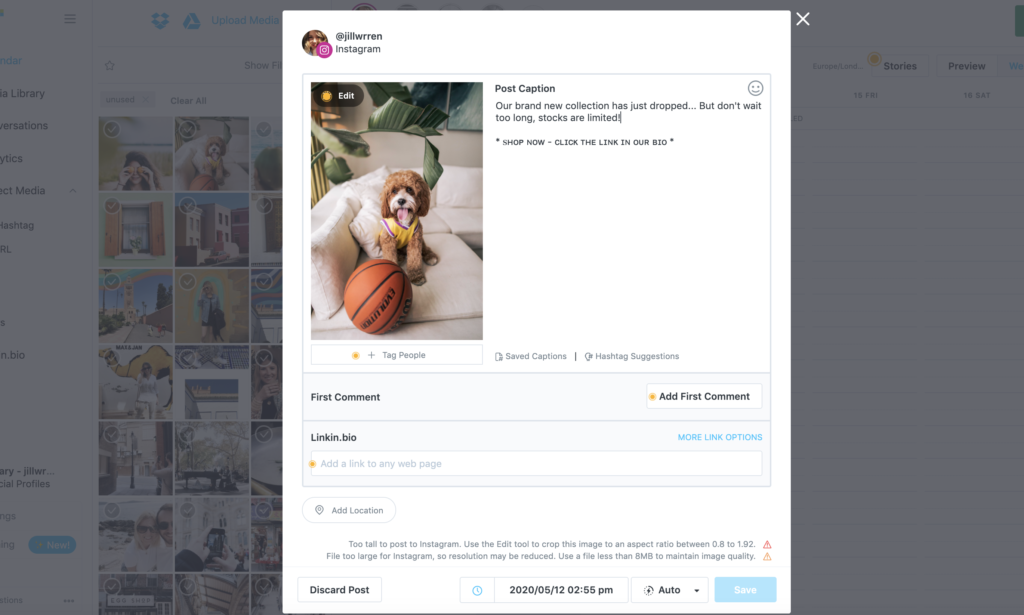
Unusual custom fonts can help you stand out from the Instagram crowd and attract new followers to your page. The official Instagram app or its web version don’t allow you to choose a custom font and change the default one; the only exception is Instagram stories.
However, if you read this article till the end, you’ll learn how to use different fonts in Instagram captions, bio, stories and even comments.
You have probably already seen Instagram profiles with fancy fonts that look much different from the default one. Your Instagram profile is your landing page, your digital face that contains your Insta personality in it: your story, your interests, your bio, number of posts you've made, followers and followings counts.
And unfortunately, you can't make the first impression twice, so you need to think everything through to make new audience become your clients. Visual aesthetics and fonts can help you do exactly that.
So, in a nutshell, what do you need different Instagram fonts for?
Instagram is a visual social media platform. Many designers, creators, and artists use it to showcase their work. Similarly, many brands and influencers are striving for attention by highlighting their creativity.
With that in mind, the competition level is incredibly high on Instagram.
Using custom fonts is one of the ways to make your Instagram look different from the others and stand out.
Custom Instagram bio by @bykatieeveInstagram wants you to experiment with content thus attracting more people to the platform. It offers so many ways to do that, including different content types like IGTV, Guides, Reels and more.
Changing your page fonts is not a built-in option, yet you still leverage it to showcase your creativity.
Instagram is a fast-paced platform with trends and challenges popping up one after another.
These trends have a direct impact on what you do on Instagram and which content you publish; you just can't stick to one trend for a long time - this will make your audience get bored and unfollow.
Using custom fonts on Instagram is currently among the trends used by influencers and brands. This means that it is time to give it a try.
There are plenty of services and apps that help you change fonts on Instagram. Free Combin Scheduler is one of them.
Let's focus on the fonts customisation, however.
To add a custom font to your post, just enter your caption to the text window and select the text (excluding emojis). Then head over to the bottom layer with fonts options.
Click on any font you wish, and your caption will change its look. You can also combine two or more fonts to create your own unique font!
Note that the font change is currently available for the English letters only!
Now start making a post through Combin Scheduler or just copy the caption to post it on your Instagram publication, story or even a comment.
You can add custom fonts to Instagram stories, bio, captions and even IGTV title and description.
If you want to leverage custom fonts in your Instagram captions, here are the best tips how to do so to get maximum attention from your audience.
Here's what you can highlight with fonts in your Instagram captions.
You have probably seen influencers and brands who use CAPS LOCK to attract your attention to an Instagram post. Well, a beautiful font is an elegant alternative to this obsolete trick.
This looks aesthetic and appealing.
2. Brand name, product name or any name at all
If you talk about your product, service, brand, event or anything else worth highlighting, use bold font to attract users' attention to it.
3. Question
If you ask questions in your captions to increase your engagement, you can use bold letters to emphasise it, regardless of where you place it - at the begging of the caption or at the end.
Remember that people initially look at those words written in a custom font and only then at the rest of your caption (if at all).
So make sure you choose the most important part to draw attention to.
Original font in the name or username focuses all attention on its owner when other people search for users on Instagram. This increases your chances to get discovered by lots of people and being followed by them.
To use different fonts in stories, you don't even need any third-party apps or services. Instagram has an in-app fonts editor that allows you to change fonts right when you make a story.
A couple more analogues - Fancytextpro.com and Fancyfonts.top.
Adding an unusual font to Instagram is easier than you think. But if you use Instagram to promote your business, choose fonts that match the style of the company. And they read well too.
If you have a serious business, and in the profile text with flowers and unreadable squiggles, on the contrary, this can harm promotion. Perhaps you don’t need an unusual font at all - it’s more important to pay attention to the design of the profile as a whole.